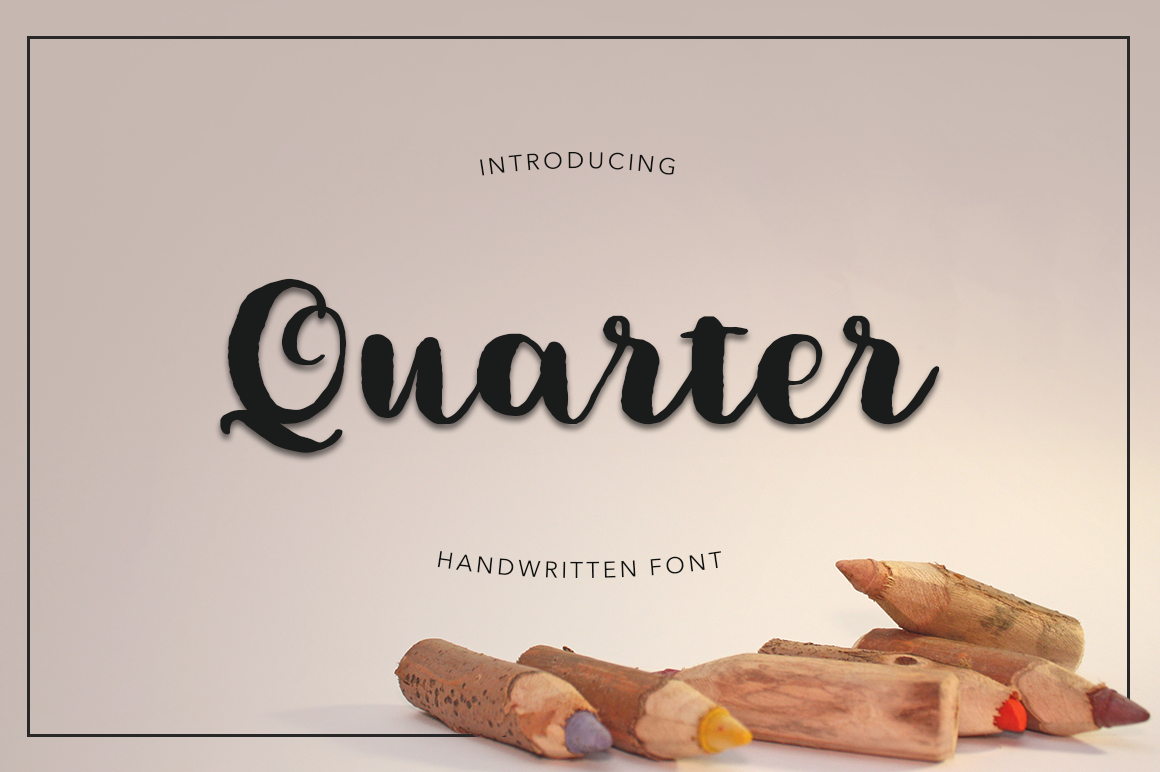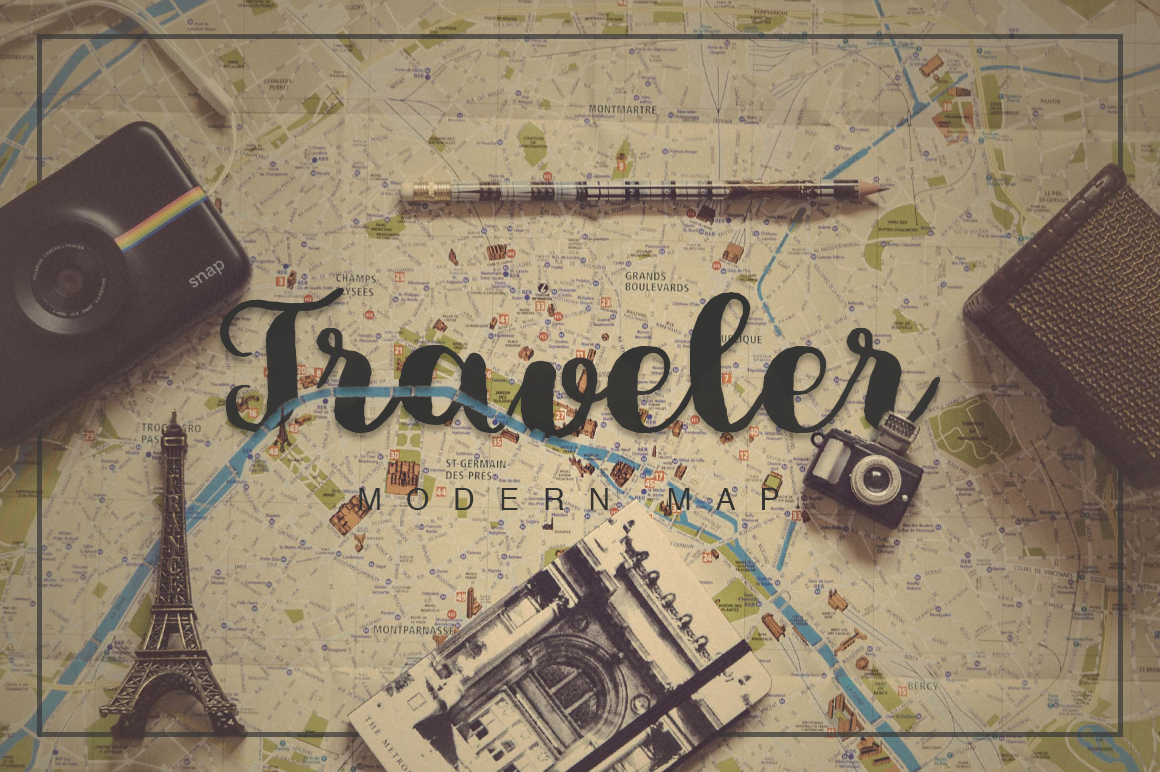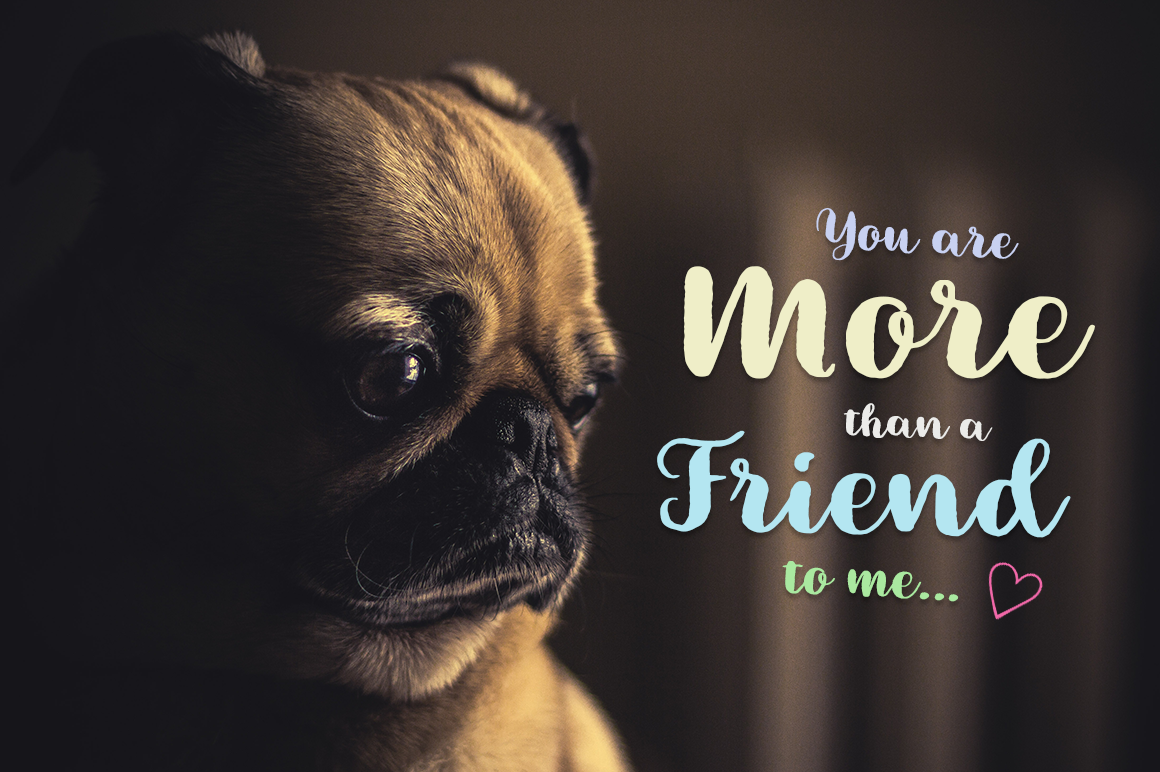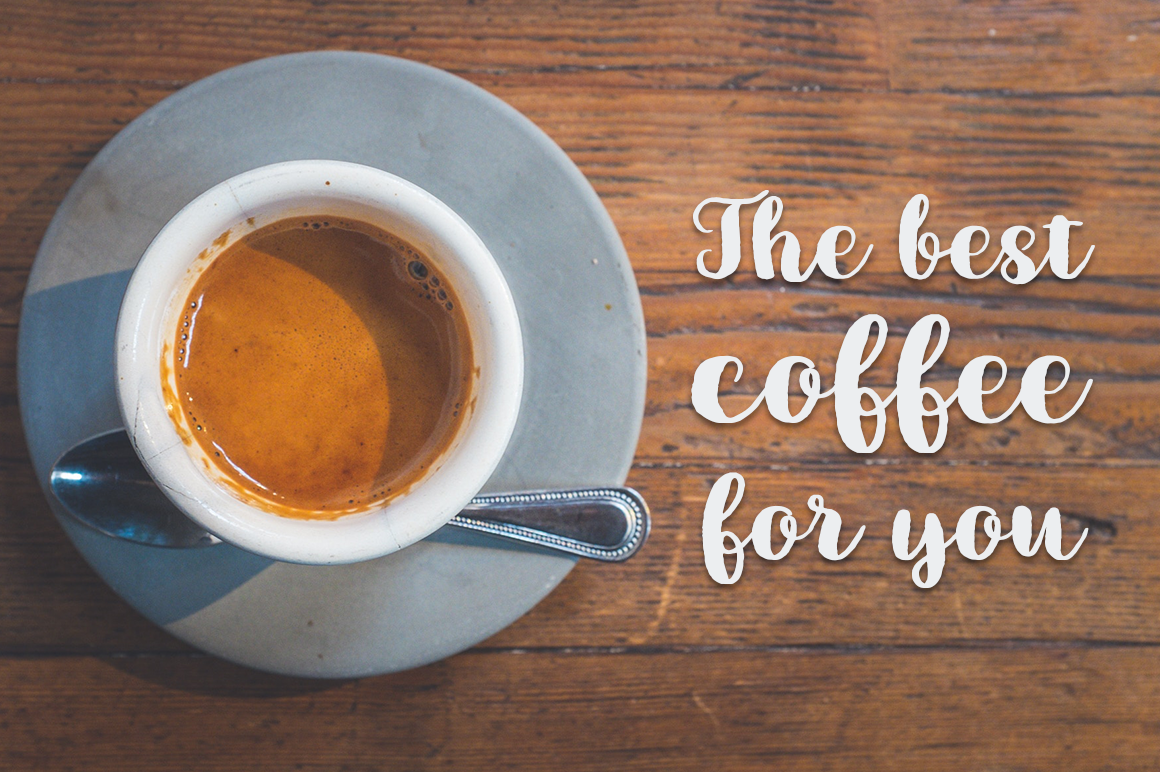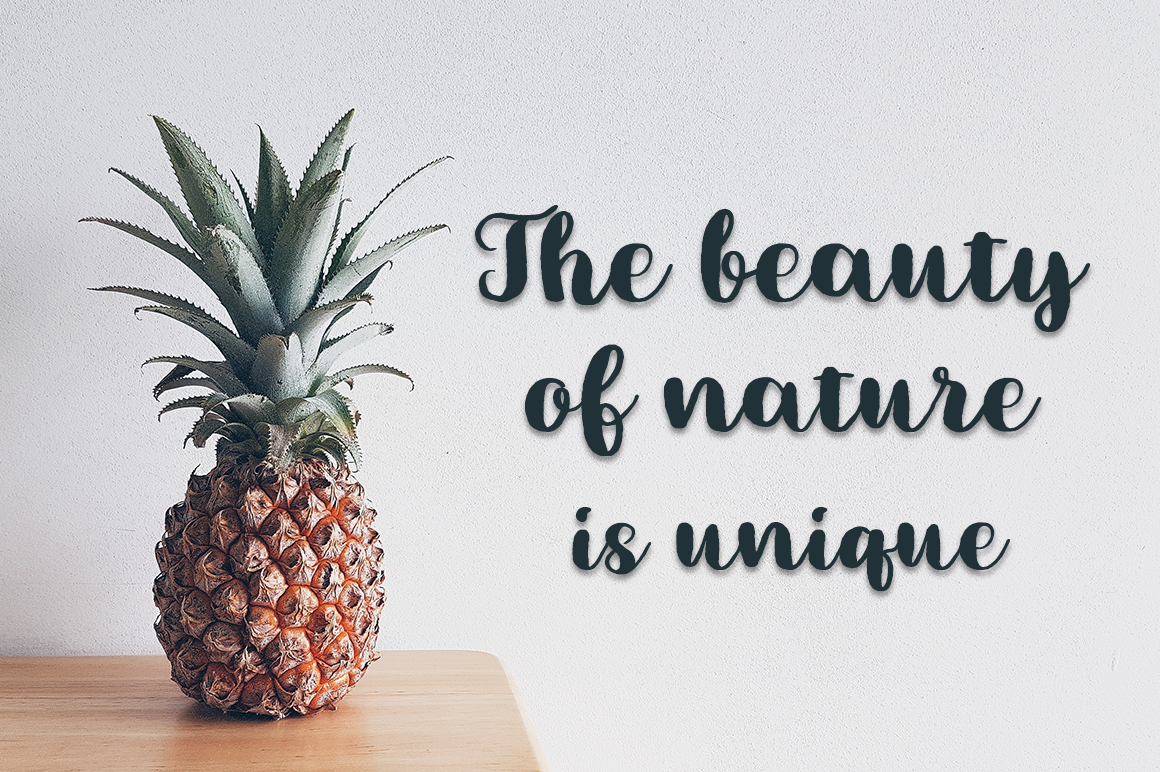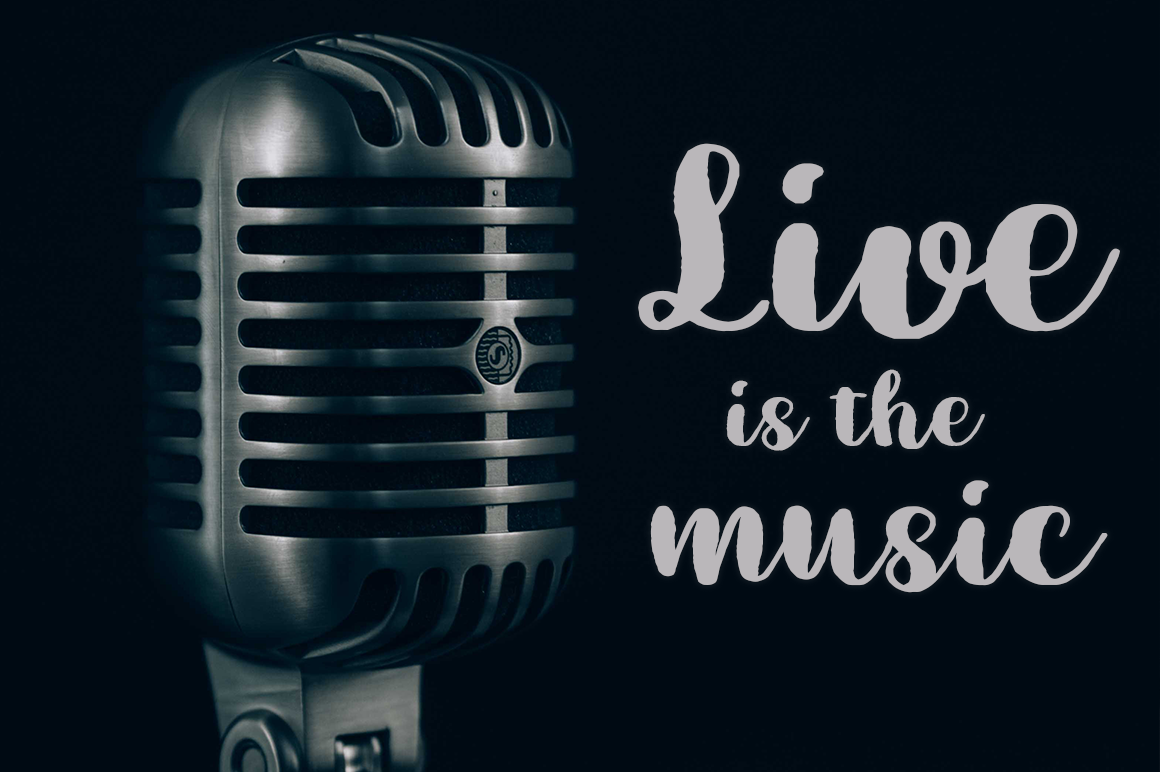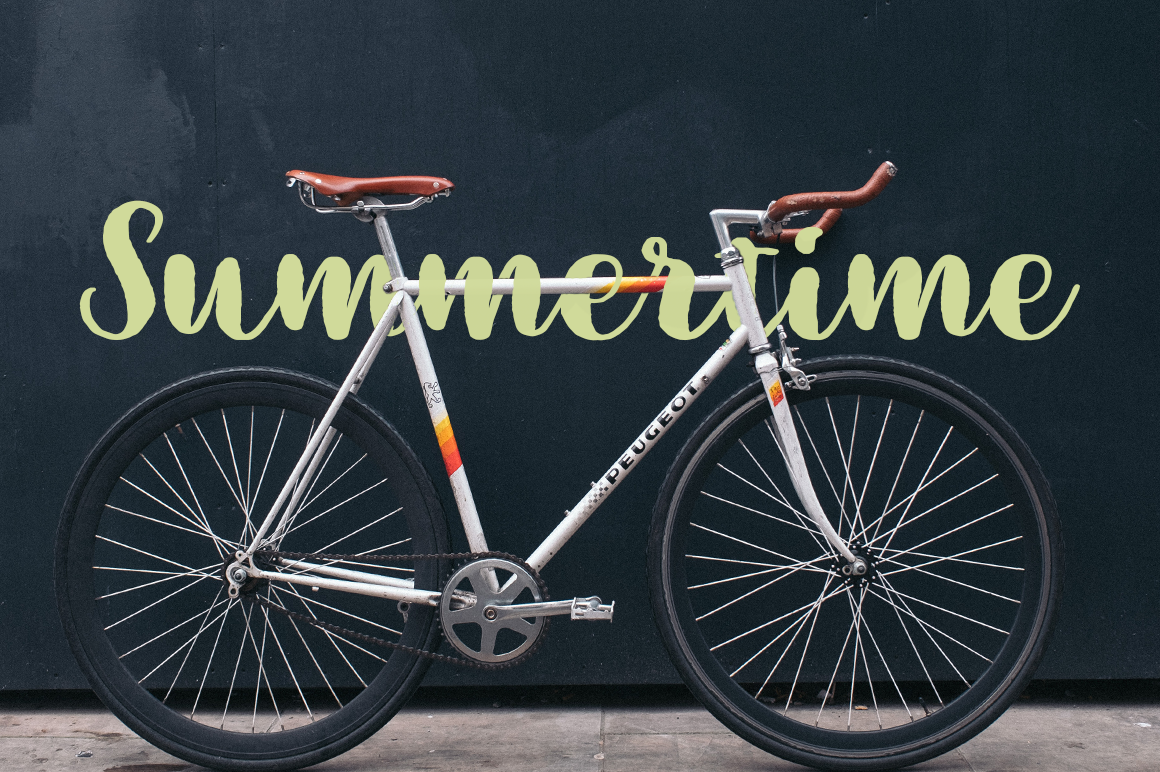
Quarter Font
About Quarter Font
Quarter Script is a handwritten font which is perfect for adding a personal touch to your projects.
It’s easy to read which makes it perfect for personal designs as well as branding.